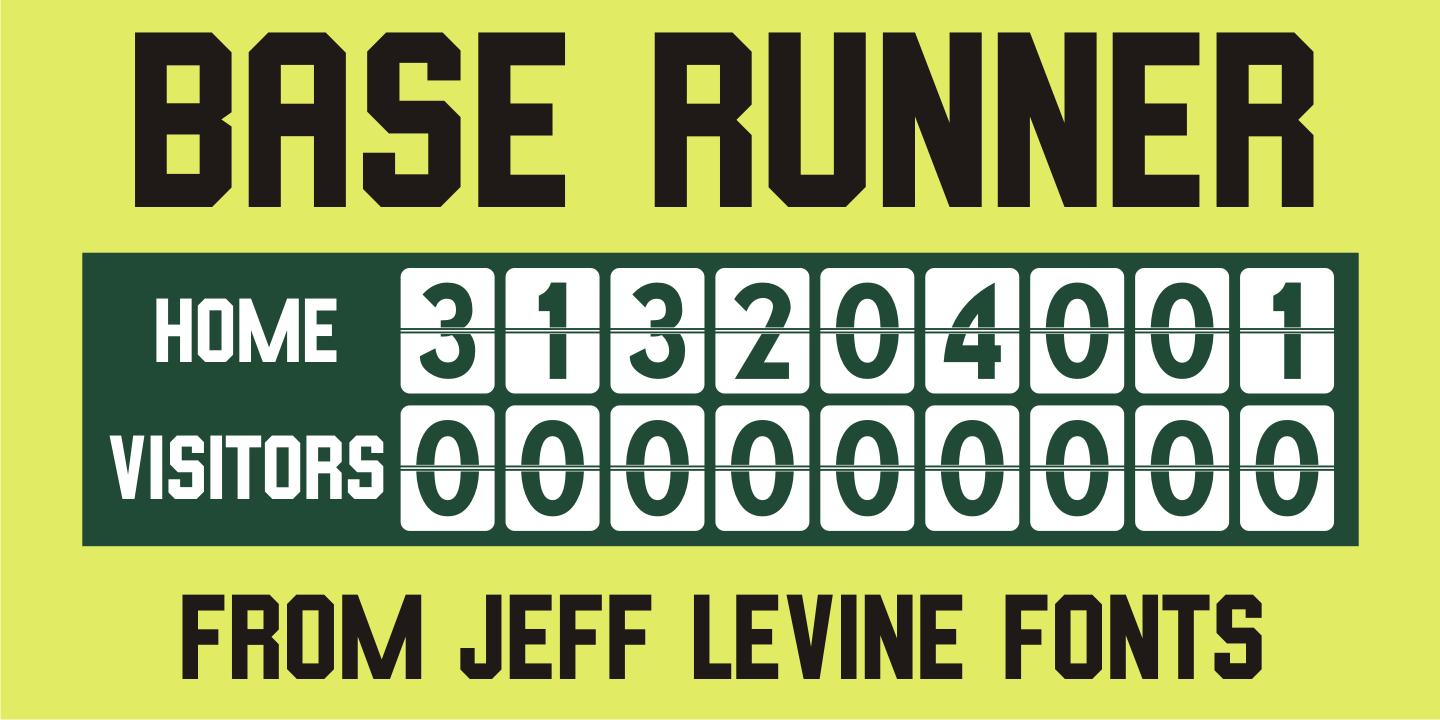
Base Runner JNL Font is perfect for sports team logos, athletic apparel designs, vintage baseball posters, retro advertising campaigns, sports bar signage, gymnasium wall graphics, tournament banners, athletic club branding, and nostalgic Americana projects that require an authentic vintage sports aesthetic.
What makes Base Runner JNL Font so exciting is its authentic vintage baseball typography that captures the classic American sports heritage with remarkable precision. This font embodies the golden era of baseball, featuring distinctive letterforms that evoke memories of classic ballparks, vintage team uniforms, and historic sports memorabilia. The carefully crafted characters deliver both nostalgia and contemporary appeal, making it perfect for modern designs that need that authentic retro touch.
The Base Runner JNL Font family typically includes regular weight variations with comprehensive character sets featuring uppercase and lowercase letters, numerals, punctuation marks, and specialized sports-related symbols. Some versions may include additional weights like bold or condensed variants, providing designers with flexible options for creating dynamic sports-themed layouts.
Base Runner JNL Font Free Download has gained tremendous popularity among sports designers, vintage enthusiasts, and branding professionals who appreciate authentic American typography. This distinctive typeface excels in both digital and print applications where classic sports aesthetics are essential for connecting with audiences who value traditional American athletic culture.
The font's vintage-inspired design makes it particularly effective for creating memorable team identities, sports merchandise, and promotional materials that need to stand out in competitive markets. Its authentic character shapes and excellent legibility ensure professional results across various media formats.
Designers choose Base Runner JNL Font for its ability to instantly communicate sports heritage and American tradition while maintaining modern functionality. The font's robust construction performs exceptionally well on jerseys, signage, websites, and promotional materials where durability and readability are crucial.
Whether you're developing sports team branding, vintage-themed restaurants, athletic event promotions, or Americana-inspired designs, Base Runner JNL Font delivers the perfect combination of authenticity and versatility. Its distinctive character and excellent craftsmanship make it an invaluable resource for projects requiring genuine vintage sports typography that resonates with diverse audiences.